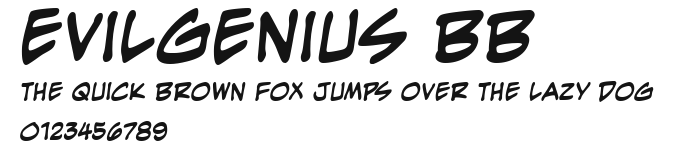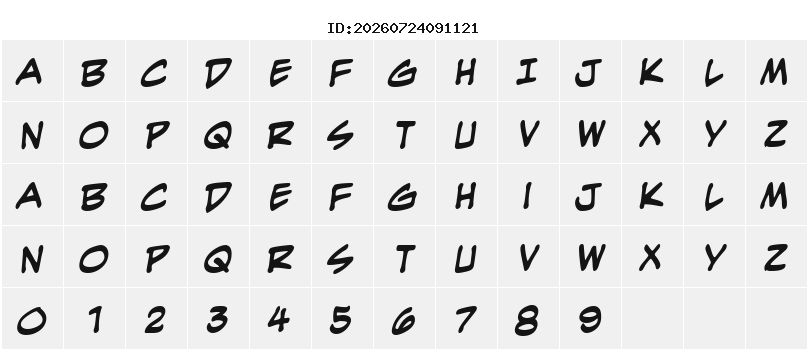
• Font Name: EvilGenius BB
• Designer: Nate Piekos
• Manufacturer: Nate Piekos. Blambot.com
About EvilGenius BB.ttf
EvilGenius BB.ttf is a modern, elegant sans-serif font designed for ultimate readability and visual harmony. Perfect for branding, headlines, web design, and print materials.